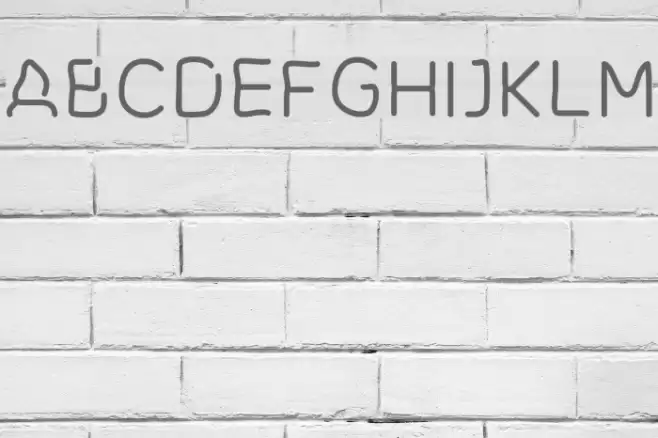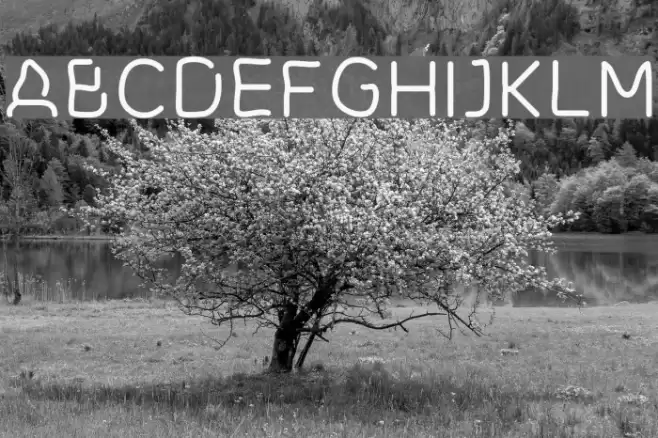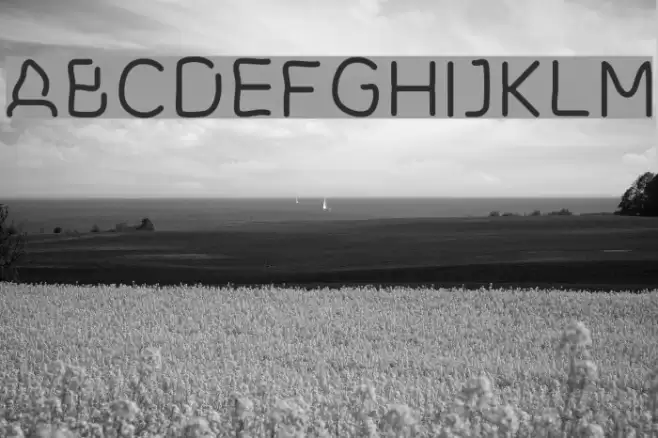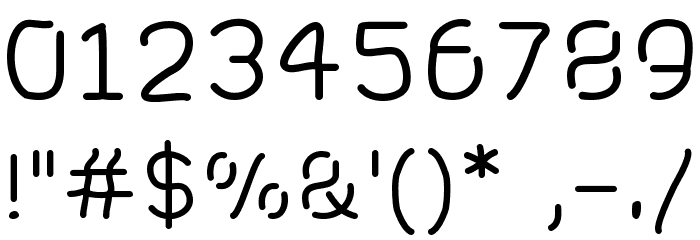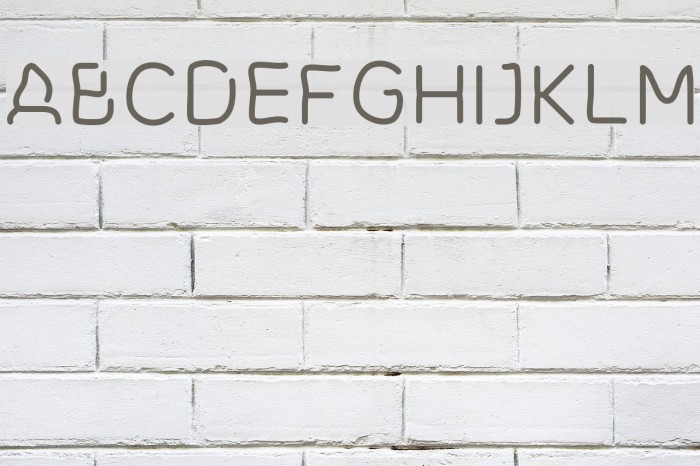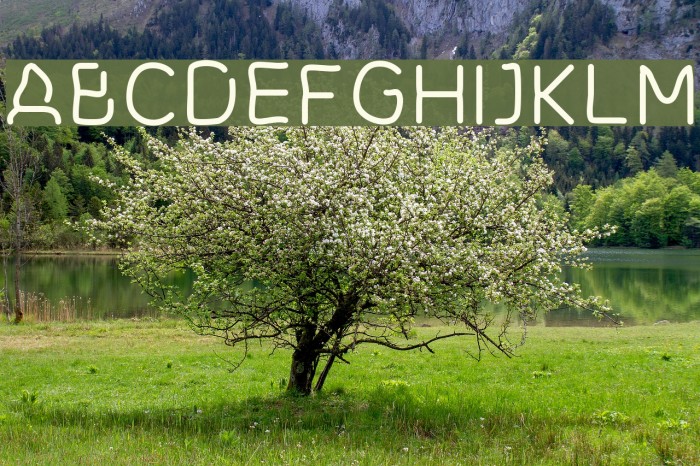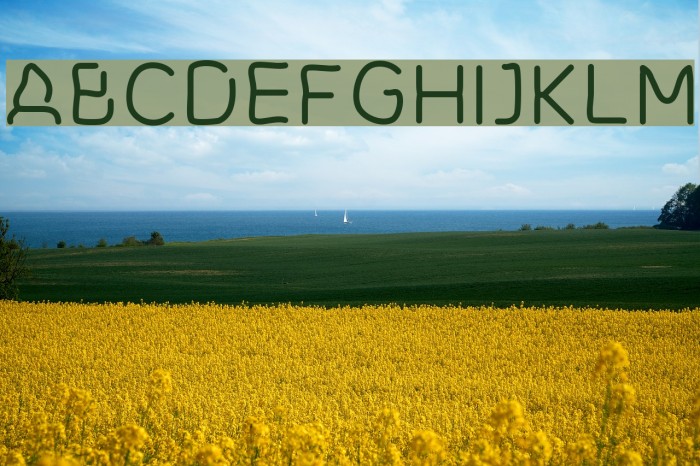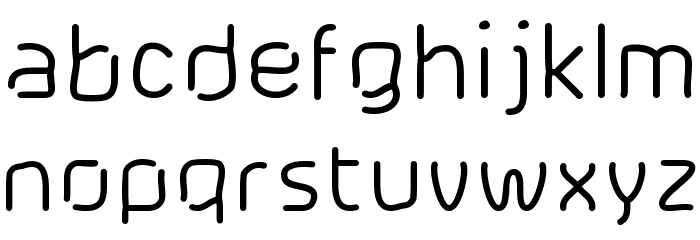
Cranberry Blues Font
Cranberry Blues Description
This font features a unique blend of modern and playful elements, characterized by its rounded and slightly irregular shapes. The letters have a hand-drawn quality, giving them a friendly and approachable feel. The uppercase and lowercase letters maintain a consistent style, with smooth curves and a slight tilt that adds a dynamic touch. The numerals and special characters follow the same design principles, ensuring a cohesive look. The overall appearance is casual yet refined, making it suitable for a variety of creative projects.
A modern, playful font with rounded, hand-drawn characters from Crazy fonts.